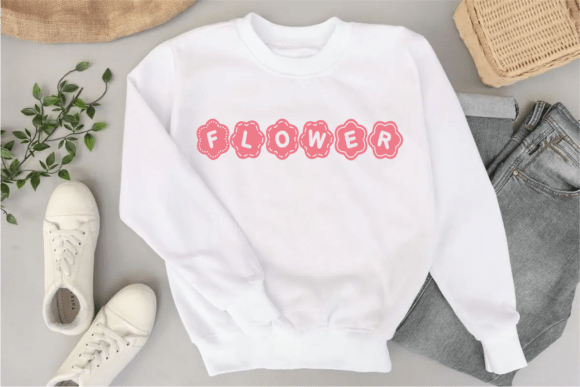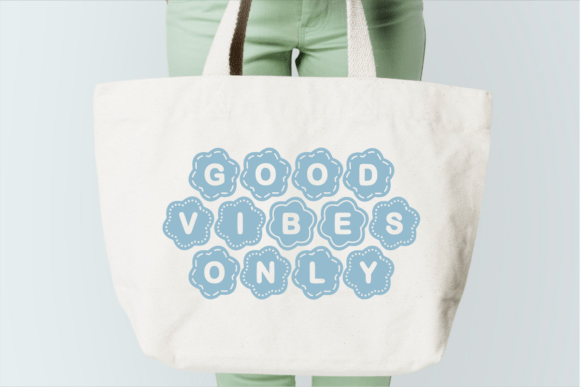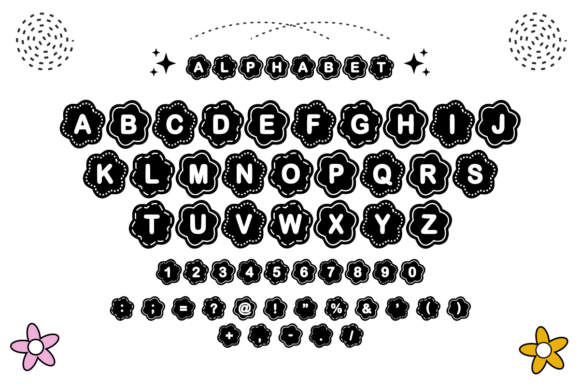
Introducing Blink Flower Font: The Ultimate Choice for Whimsical Designs
Are you looking for a font that can add a touch of playfulness and charm to your designs? Look no further than Blink Flower Font, a contemporary cartoon-style font that is sure to delight. This alluring font boasts only uppercase letters, each nestled in a beautiful flower-shaped frame, making it perfect for a variety of creative projects.
A Joyful Decorative Font
Blink Flower is a joyful decorative font that features a sweet, playful vibe and floral flair. Its whimsical nature adds charm and friendliness to any layout, making it an ideal choice for designers and crafters who want to create something truly special. Whether you’re working on a girls’ party invitation, a children’s product, or a nursery design, Blink Flower Font is the perfect choice.
So, what can you use Blink Flower Font for? The possibilities are endless! Here are just a few ideas to get you started:
- Girls’ party invites: Add a touch of sweetness and charm to your party invitations with Blink Flower Font.
- Children’s products: From toys to clothing, Blink Flower Font is perfect for any product designed for kids.
- Nursery designs: Create a beautiful and playful nursery with Blink Flower Font.
- Spring-themed projects: Welcome spring with a fresh and playful font that’s perfect for the season.
- Kid-centric crafts: From DIY projects to classroom decor, Blink Flower Font is a great choice for any craft project.
- Sublimated tees: Add a touch of whimsy to your custom t-shirts with Blink Flower Font.
- Custom mugs: Create a one-of-a-kind mug with Blink Flower Font.
- Eco-friendly tote bags: Add a playful touch to your eco-friendly tote bags with Blink Flower Font.
- Spirited animations: Bring your animations to life with Blink Flower Font.
- Fun comic titles: Add a touch of playfulness to your comic titles with Blink Flower Font.
- Children’s coloring books: Create a fun and engaging coloring book with Blink Flower Font.
- Romantic weddings: Yes, you read that right! Blink Flower Font can even be used for romantic weddings, adding a touch of whimsy and playfulness to your wedding designs.
What Makes Blink Flower Font So Special?
So, what sets Blink Flower Font apart from other fonts? Here are just a few things that make it so special:
- Unique design: Each character is laden with distinct charm, blending cute and sweet qualities to create a unique design.
- Whimsical nature: Blink Flower Font has a playful and whimsical nature that adds charm and friendliness to any layout.
- Floral flair: The flower-shaped frames add a touch of elegance and sophistication to any design.
- Uppercase letters: Blink Flower Font features only uppercase letters, making it perfect for headings and titles.
Tips for Using Blink Flower Font
Here are a few tips for using Blink Flower Font in your designs:
- Pair with a simple font: Blink Flower Font is a bold and playful font, so it’s best to pair it with a simple font to avoid overwhelming the design.
- Use it sparingly: While Blink Flower Font is perfect for headings and titles, it can be overwhelming if used too much. Use it sparingly to add a touch of whimsy to your design.
- Experiment with colors: Blink Flower Font looks great in a variety of colors, so don’t be afraid to experiment and find the perfect color for your design.
In conclusion, Blink Flower Font is a unique and playful font that’s perfect for designers and crafters who want to add a touch of whimsy to their designs. With its sweet, playful vibe and floral flair, it’s ideal for a variety of creative projects, from girls’ party invites to children’s products, nursery designs, and spring-themed projects. Its whimsical nature adds charm and friendliness to any layout, making it a great choice for kid-centric crafts, sublimated tees, custom mugs, eco-friendly tote bags, spirited animations, fun comic titles, children’s coloring books, romantic weddings, and beyond.